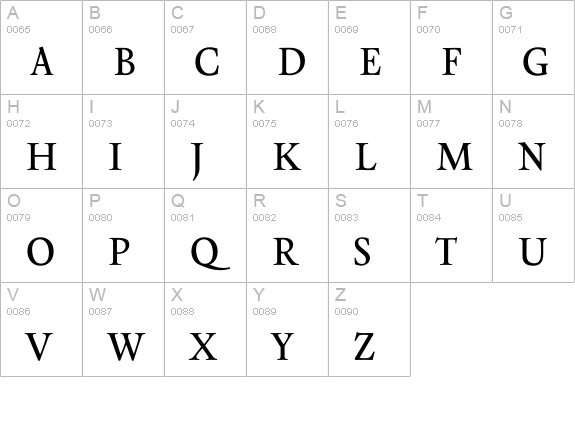
Pan DaMa Expert Font Details
Introducing Pan DaMa Expert, a stunning and versatile font that will elevate your designs to new heights. This font is perfect for a wide range of projects, from sleek modern logos to elegant invitations and everything in between. With its clean lines and contemporary aesthetic, Pan DaMa Expert brings a sense of sophistication and professionalism to any design. What sets Pan DaMa Expert apart is not only its exceptional design, but also the fact that it is completely free to download. Yes, you read that right – this incredible font is available for free at FontsMarket.com. Now, you can add a touch of elegance and style to your projects without breaking the bank. Pan DaMa Expert boasts a wide range of characters, including uppercase and lowercase letters, numbers, punctuation marks, and special symbols. This ensures that you have all the tools you need to create captivating and visually appealing designs. Whether you're a graphic designer, a web developer, or someone who simply appreciates beautiful typography, Pan DaMa Expert is sure to become your go-to font. The versatility of Pan DaMa Expert is truly remarkable. Its clean and minimalistic design makes it the perfect choice for both digital and print projects. From branding materials to social media graphics, this font will instantly elevate your designs and make them stand out from the crowd. Don't miss out on this amazing opportunity to download Pan DaMa Expert for free at FontsMarket.com. Take your designs to the next level and unleash your creativity with this exceptional font. Get ready to impress your clients, captivate your audience, and leave a lasting impression with Pan DaMa Expert.